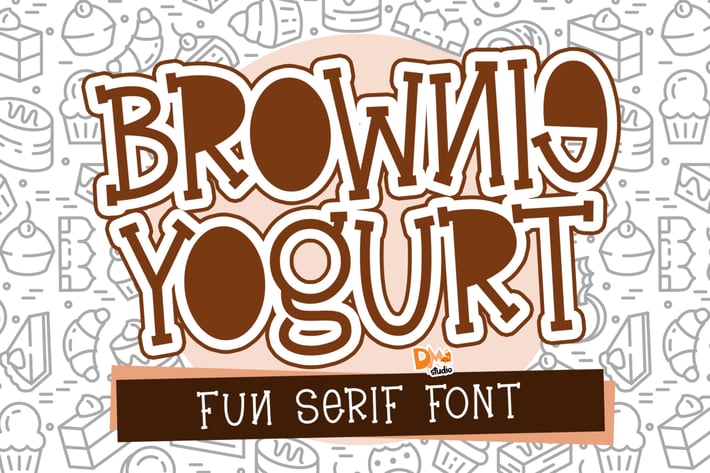
Brownie Yogurt - Fun Serif Font
Introducing this fun, clean and expressive serif font : Brownie Yogurt !
Brownie Yogurt fun serif font is a useful font for wide variety designs, its charming will definitely make your crafts more fabulous!
Great for your personal needs, promotional stuffs, gifts, scrapbook, printing, and much more.
Comes in two style in one font! Simply switch between uppercase and lowercase and you'll get different styles!
-All in caps
-Uppercase : Regular style
-Lowercase : Blacked style